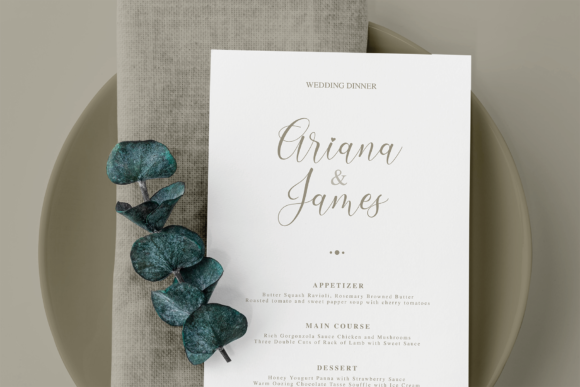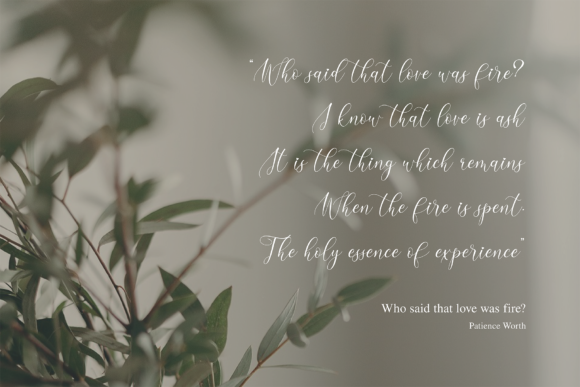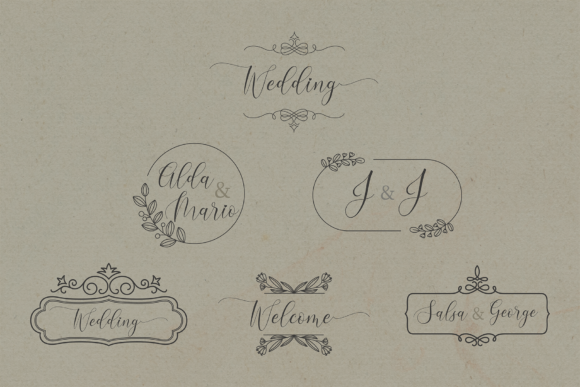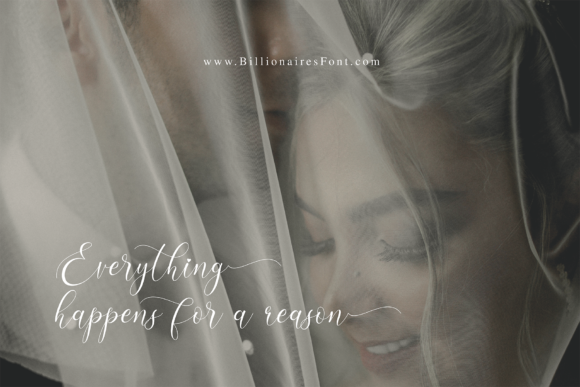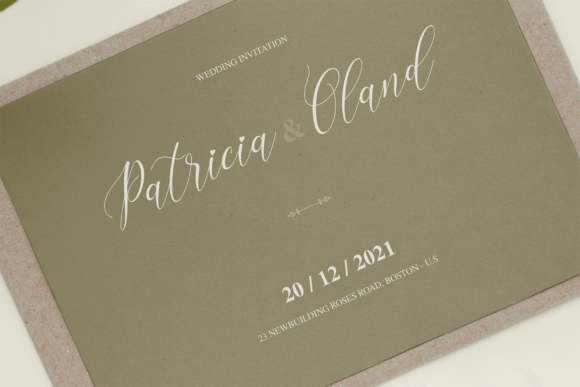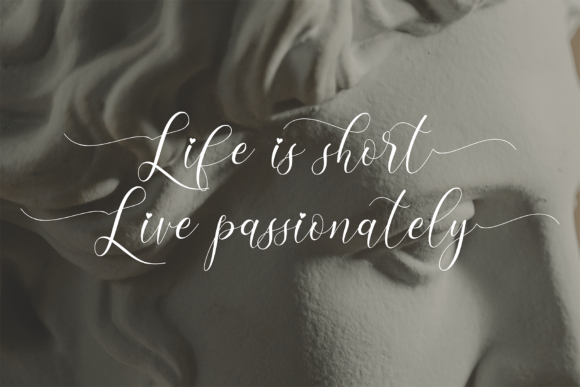
Introducing Cardigan Christmas Font: A Delicate and Elegant Handwritten Font for Your Holiday Designs
Are you looking for a beautiful and elegant font to make your holiday designs shine? Look no further than the Cardigan Christmas font! This stunning handwritten font is perfect for creating festive and sophisticated designs that will leave a lasting impression. In this article, we’ll dive into the features and benefits of the Cardigan Christmas font, and explore how you can use it to elevate your holiday designs.
A Delicate and Elegant Handwritten Font
The Cardigan Christmas font is a delicate, elegant, and flowing handwritten font that exudes a sense of refinement and sophistication. Its beautiful and well-balanced characters make it perfect for a wide range of designs, from holiday cards and invitations to festive packaging and marketing materials. Whether you’re a designer, crafter, or DIY enthusiast, this font is sure to become a favorite in your collection.
PUA Encoded for Easy Access to Glyphs and Swashes
One of the standout features of the Cardigan Christmas font is its PUA (Private Use Area) encoding. This means that you can access all of the glyphs and swashes with ease, giving you maximum flexibility and creative control over your designs. With PUA encoding, you can easily insert special characters, such as ornaments and flourishes, to add an extra touch of elegance and whimsy to your designs.
Perfect for a Wide Range of Holiday Designs
The Cardigan Christmas font is incredibly versatile, making it perfect for a wide range of holiday designs. Here are just a few ideas to get you started:
- Holiday cards and invitations: Create beautiful and elegant holiday cards and invitations that will impress your friends and family.
- Festive packaging: Add a touch of sophistication to your holiday packaging with the Cardigan Christmas font.
- Marketing materials: Use the Cardigan Christmas font to create eye-catching marketing materials, such as flyers, brochures, and social media graphics.
- Crafting projects: Add a personal touch to your crafting projects, such as scrapbooking, journaling, and card making, with the Cardigan Christmas font.
Why Choose the Cardigan Christmas Font?
So why choose the Cardigan Christmas font for your holiday designs? Here are just a few reasons:
- Elegant and sophisticated: The Cardigan Christmas font is the epitome of elegance and sophistication, making it perfect for creating high-end holiday designs.
- Versatile: This font is incredibly versatile, making it perfect for a wide range of holiday designs.
- Easy to use: With PUA encoding, you can easily access all of the glyphs and swashes, making it easy to create beautiful and intricate designs.
- Unique: The Cardigan Christmas font is a unique and distinctive font that will help your designs stand out from the crowd.
Tips for Using the Cardigan Christmas Font
Here are a few tips for using the Cardigan Christmas font in your holiday designs:
- Pair it with other fonts: Experiment with pairing the Cardigan Christmas font with other fonts to create a unique and eye-catching design.
- Use it sparingly: Use the Cardigan Christmas font sparingly to add a touch of elegance and sophistication to your designs.
- Experiment with colors: Experiment with different colors and textures to add depth and interest to your designs.
- Have fun: Most importantly, have fun and be creative with the Cardigan Christmas font!
| Font Name | Cardigan Christmas Font |
| Author | aldedesign |
The Cardigan Christmas font is a beautiful and elegant handwritten font that is perfect for creating festive and sophisticated holiday designs. With its PUA encoding and versatile design, it’s easy to use and perfect for a wide range of applications. Whether you’re a designer, crafter, or DIY enthusiast, the Cardigan Christmas font is sure to become a favorite in your collection. So why wait? Download the Cardigan Christmas font today and start creating stunning holiday designs that will leave a lasting impression!